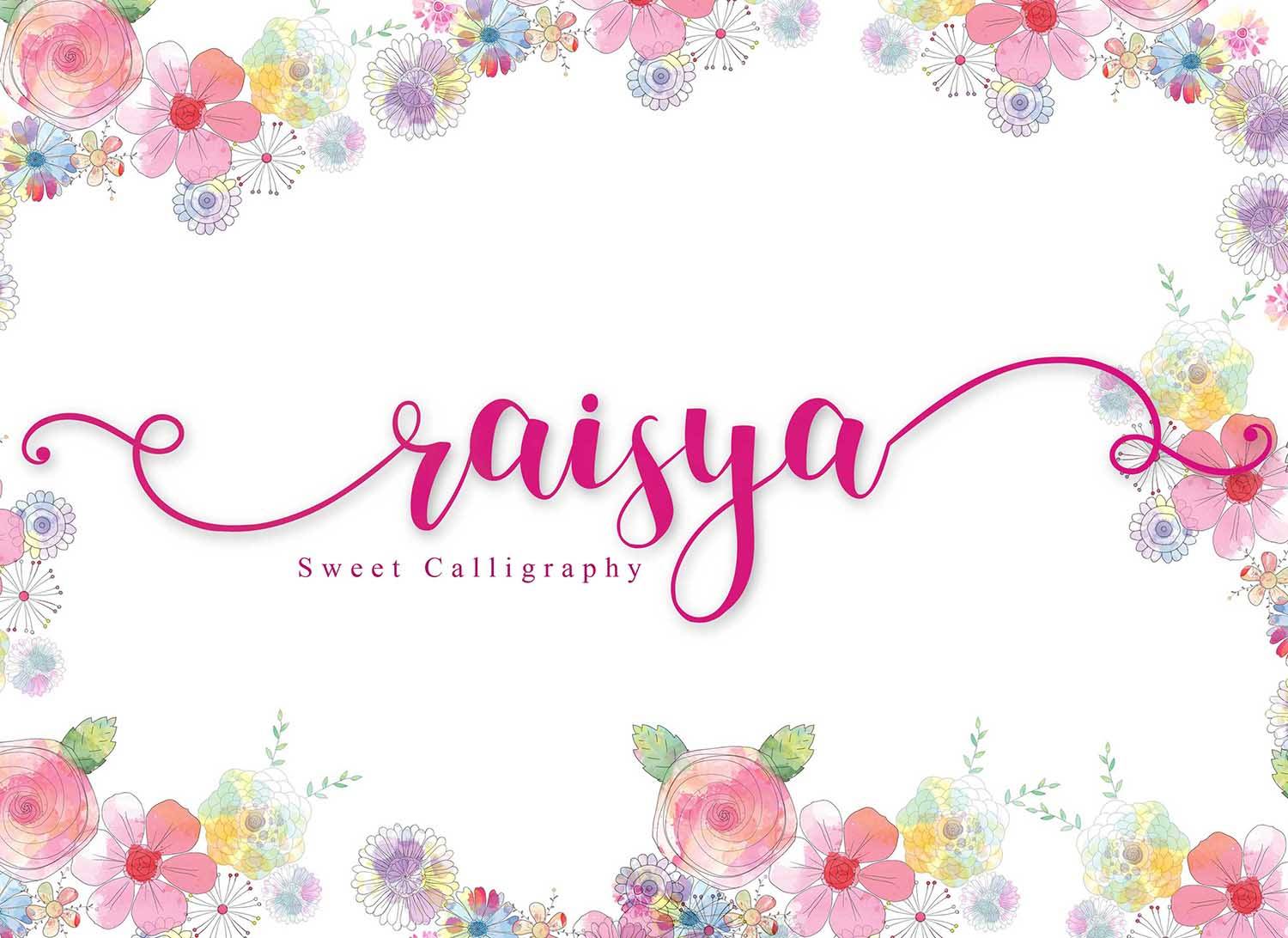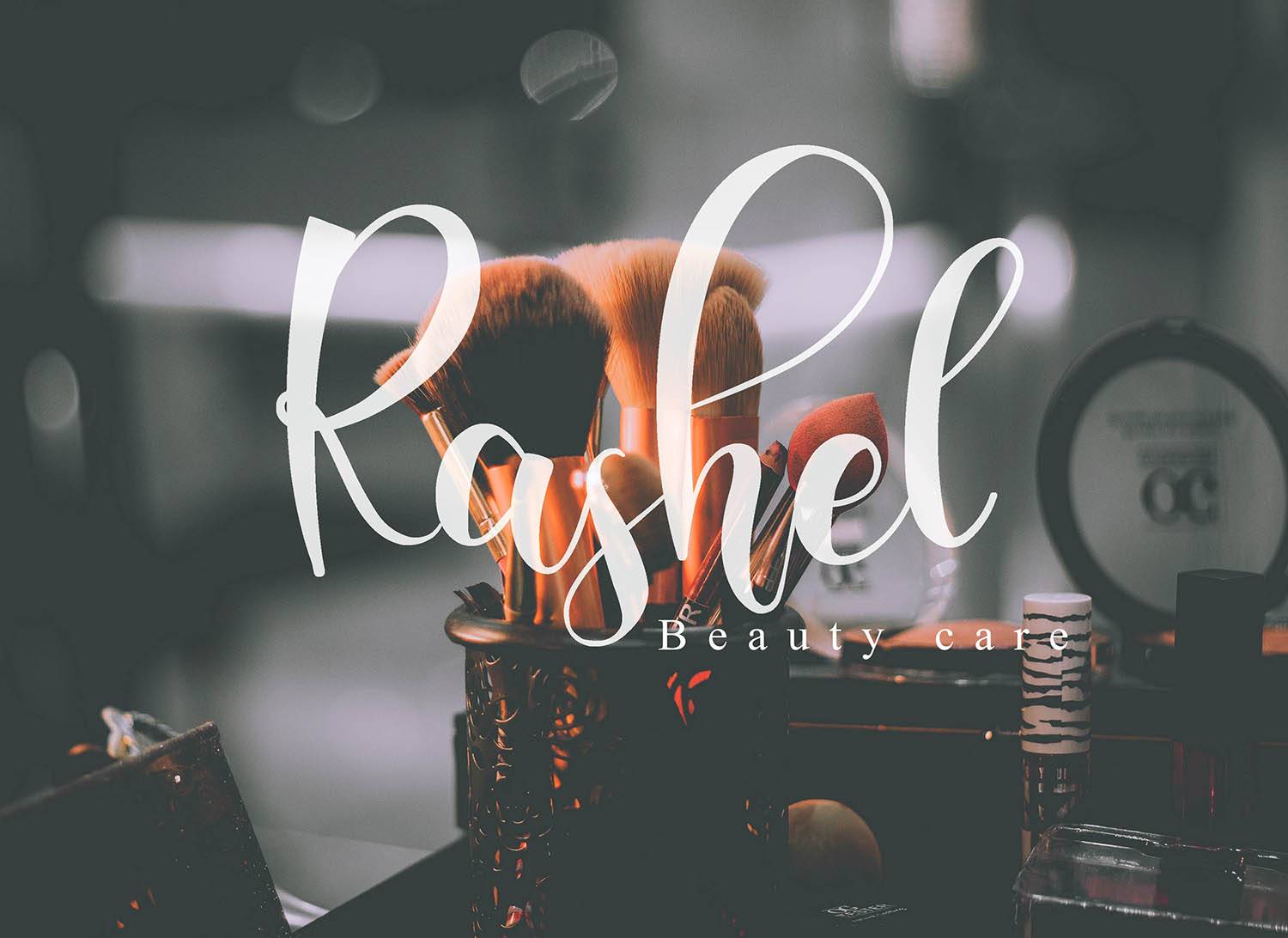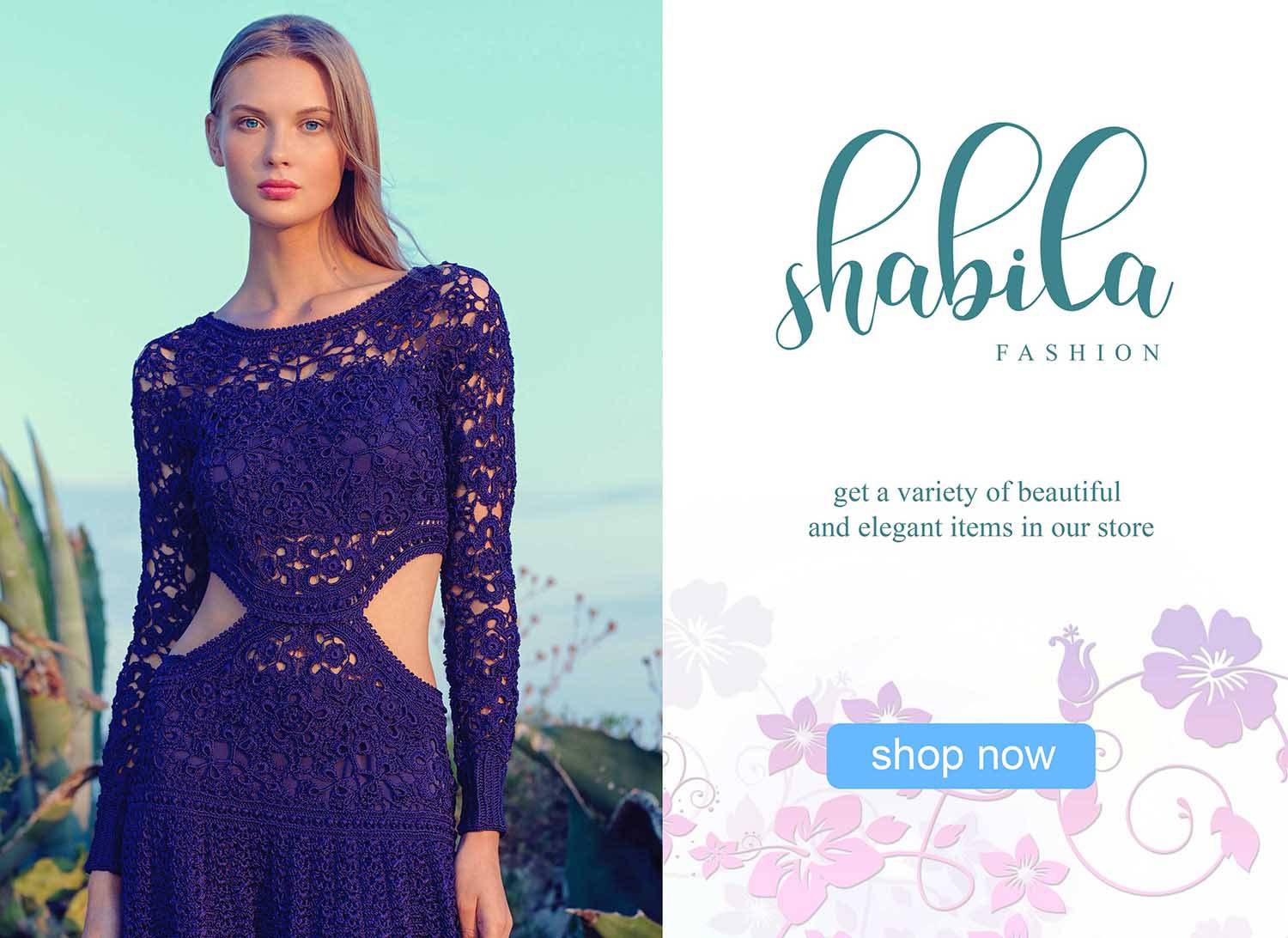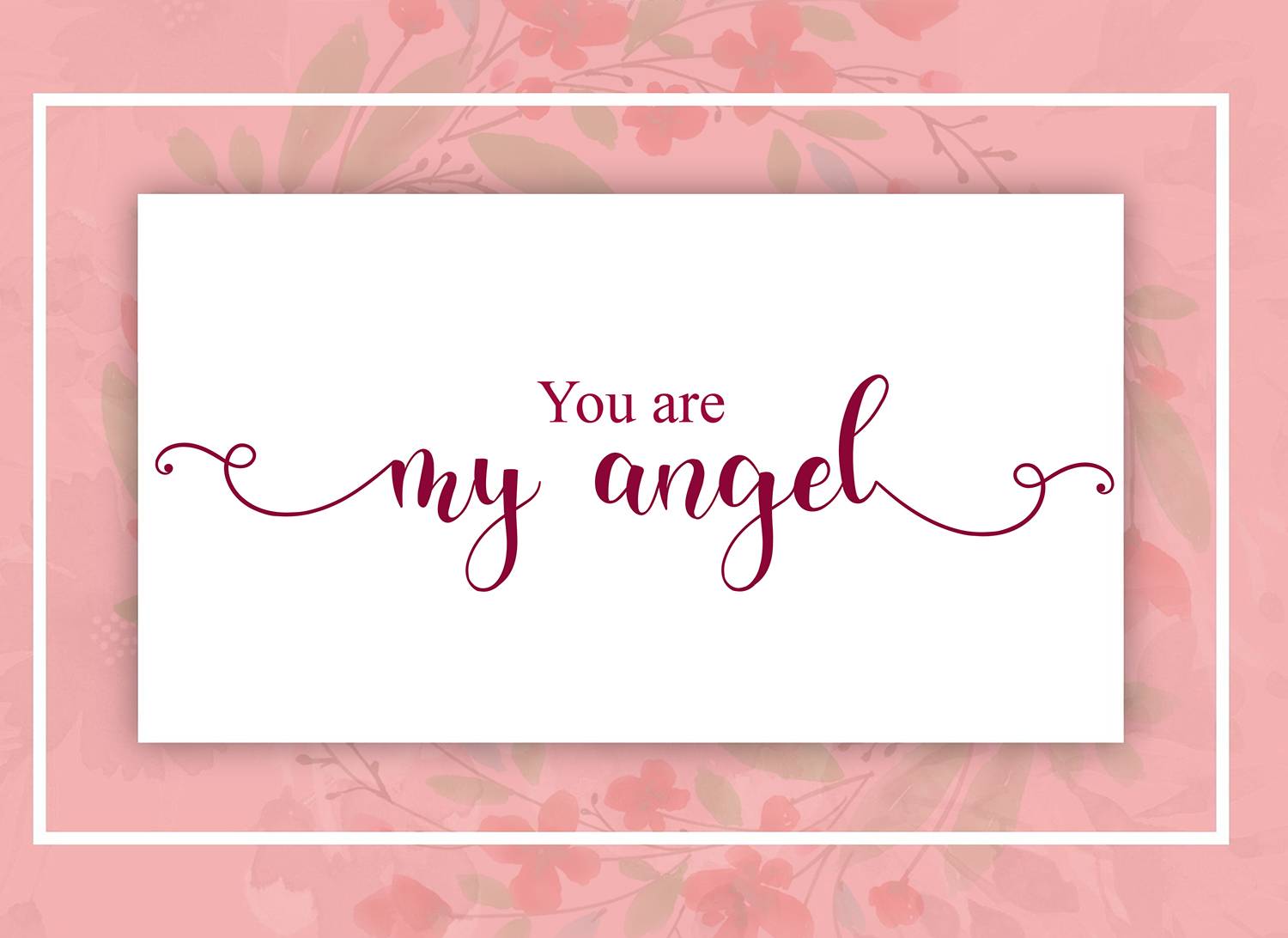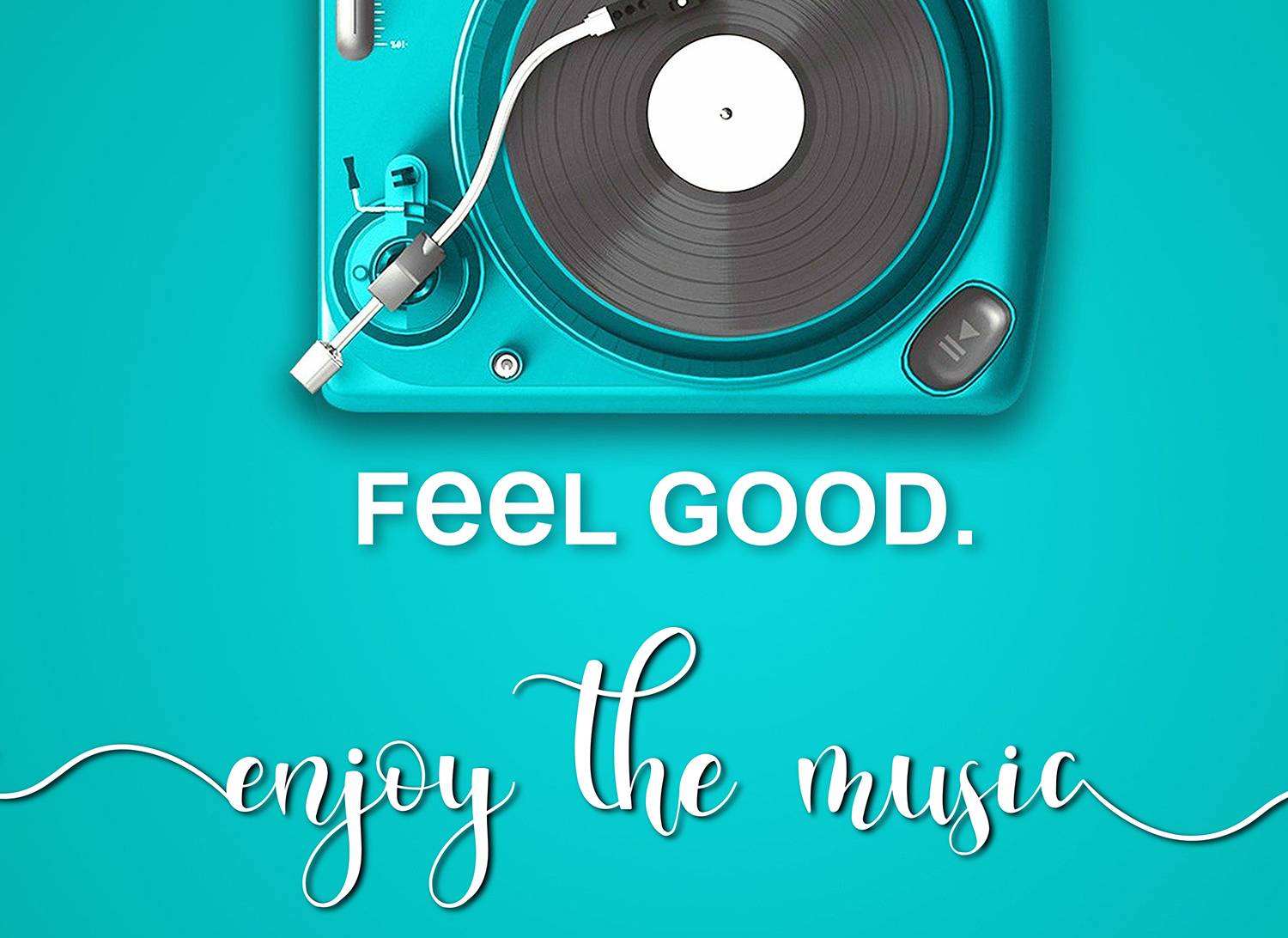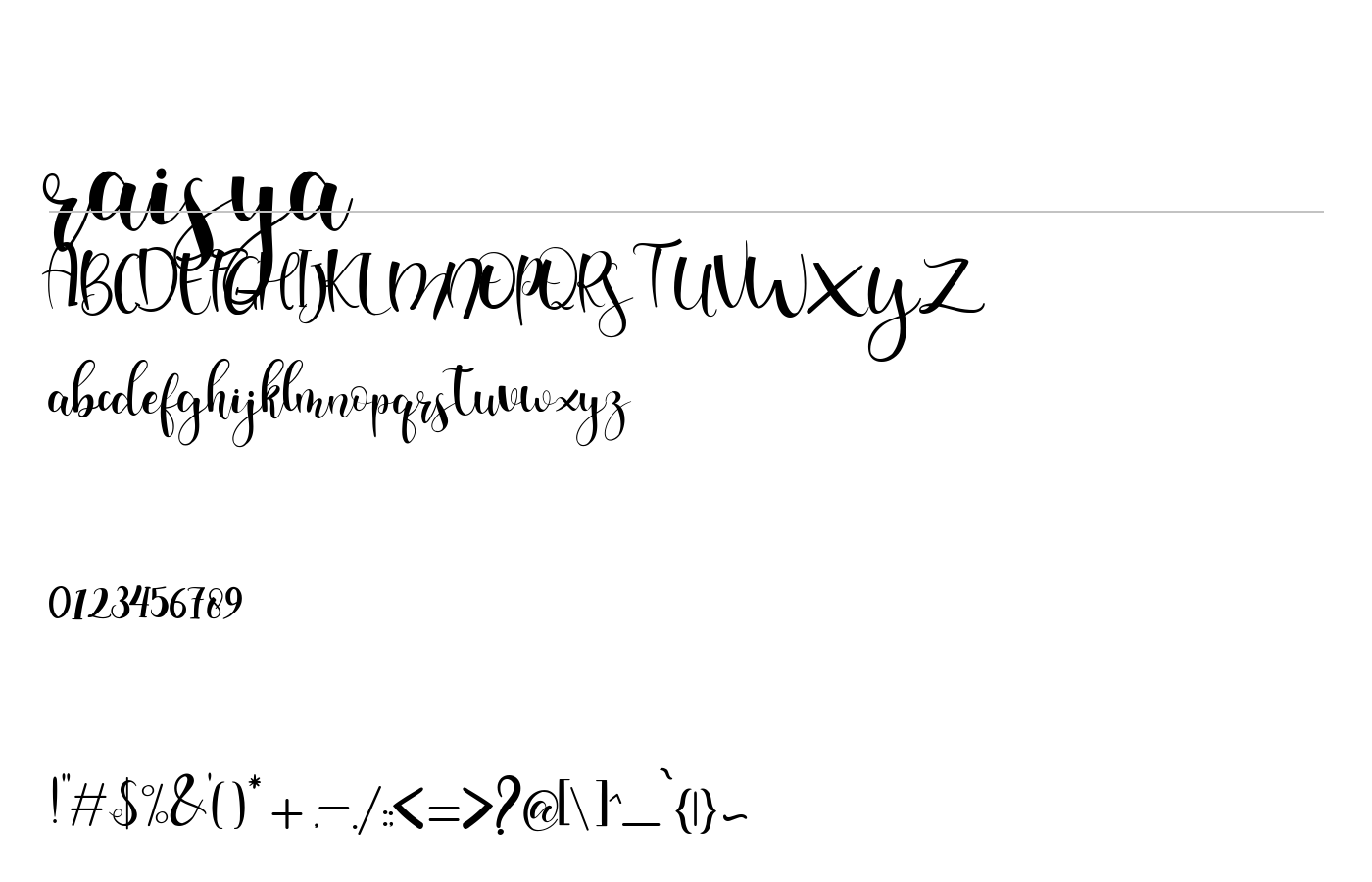
Raisya is an elegant script font featuring flowing, calligraphic letterforms with high contrast between thick and thin strokes, creating a refined and graceful appearance. Its playful yet sophisticated style is ideal for wedding invitations, branding, and decorative headlines where a personal, artistic touch is desired. This font shines in projects that need a stylish, handwritten feel with a modern flair.
Raisya Font